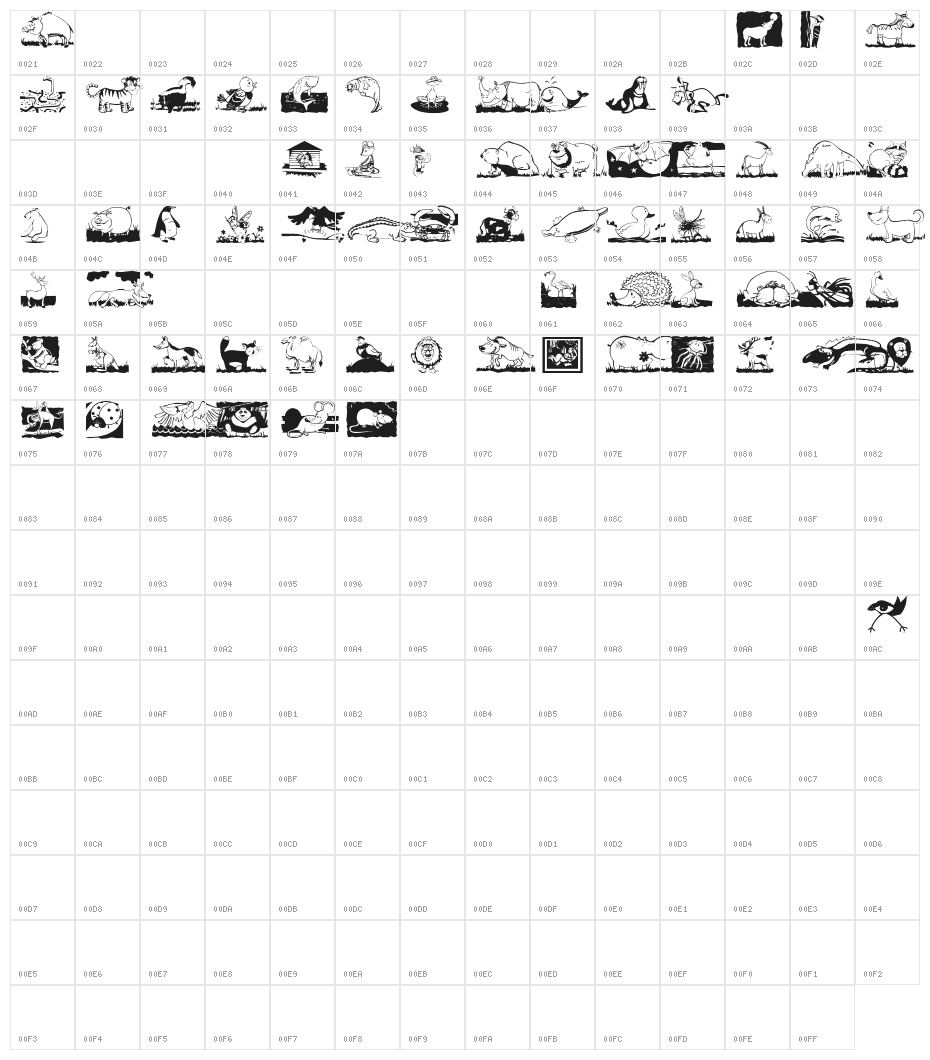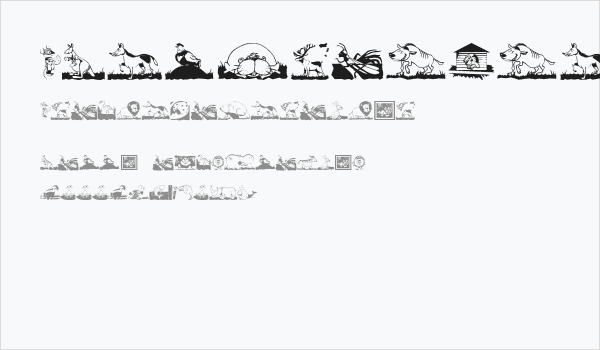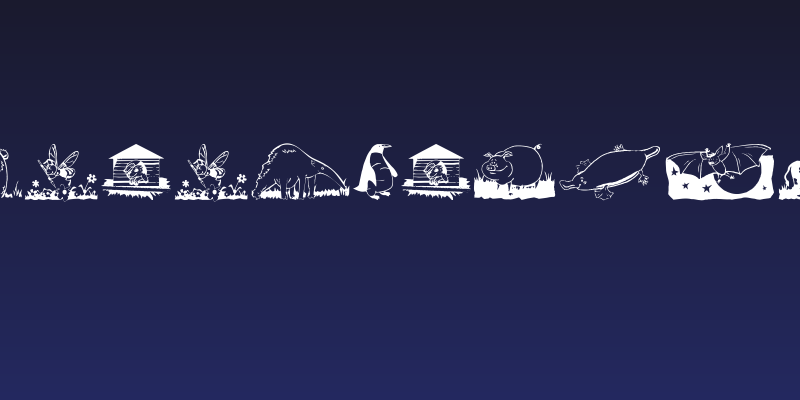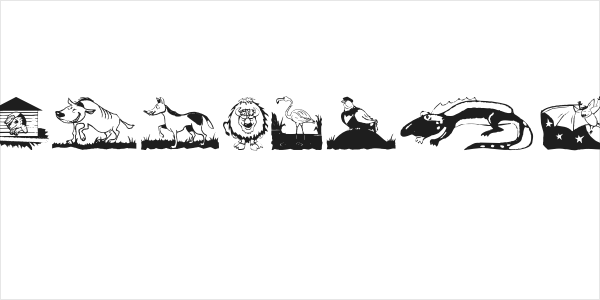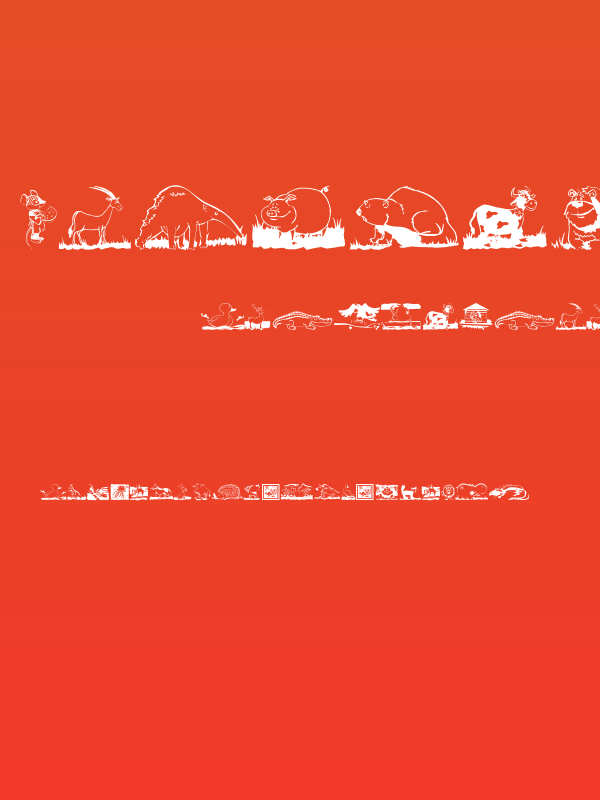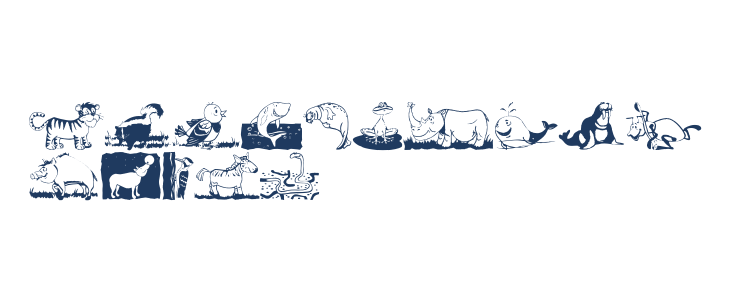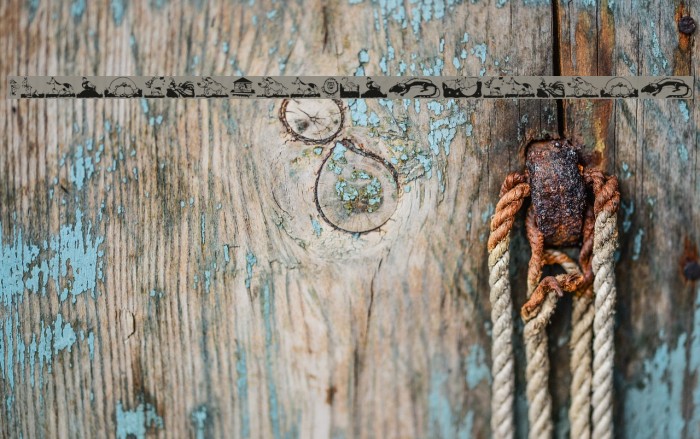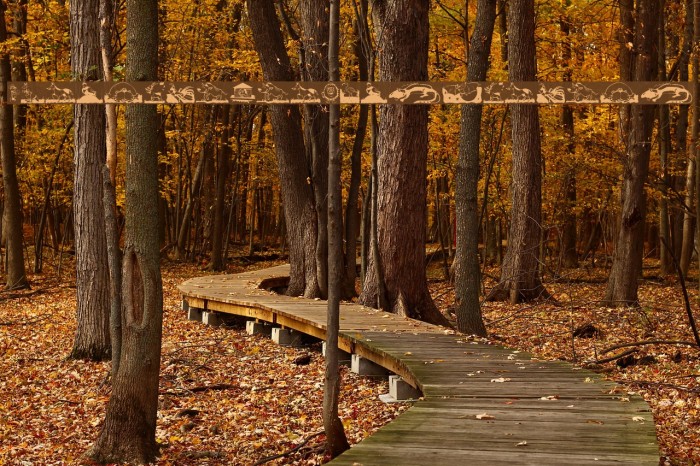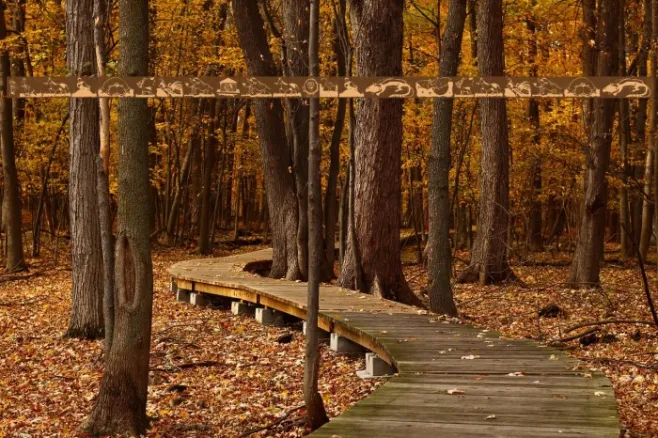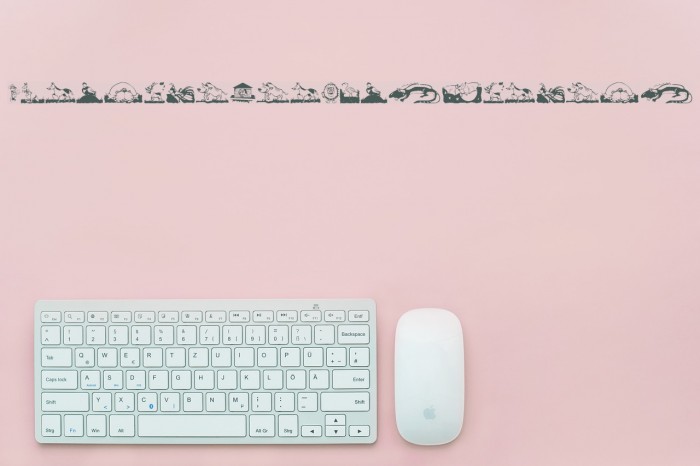
ChildrenAnimalsFriends Font
ChildrenAnimalsFriends Description
A playful and whimsical decorative font composed entirely of hand-drawn animal illustrations, each character represented by a unique cartoon animal or animal scene, with bold outlines and high contrast, evoking a friendly and childlike atmosphere.
| Overall Style | Playful, Whimsical, Childlike, Decorative |
| Use Case | Headlines, Posters, Children’s materials, Themed graphics |
| Proposed Projects | Children’s books, educational materials, posters, birthday invitations, animal-themed party decor. |